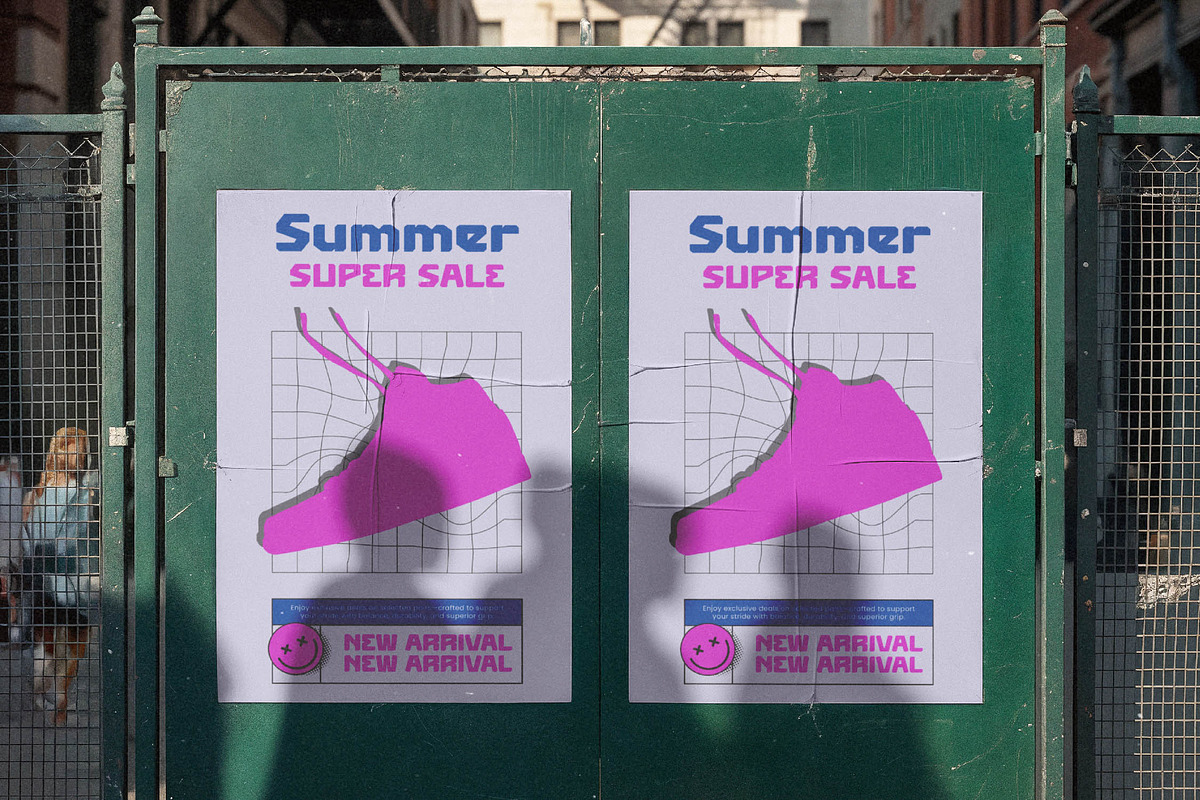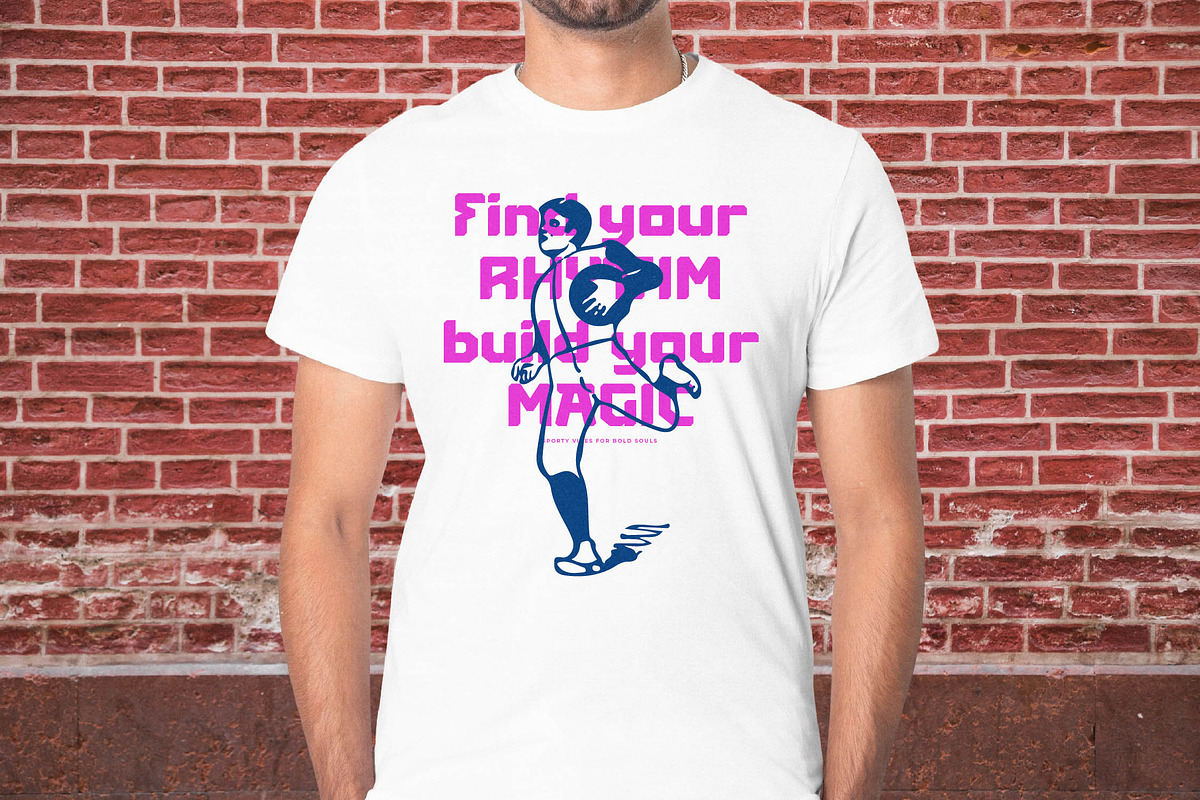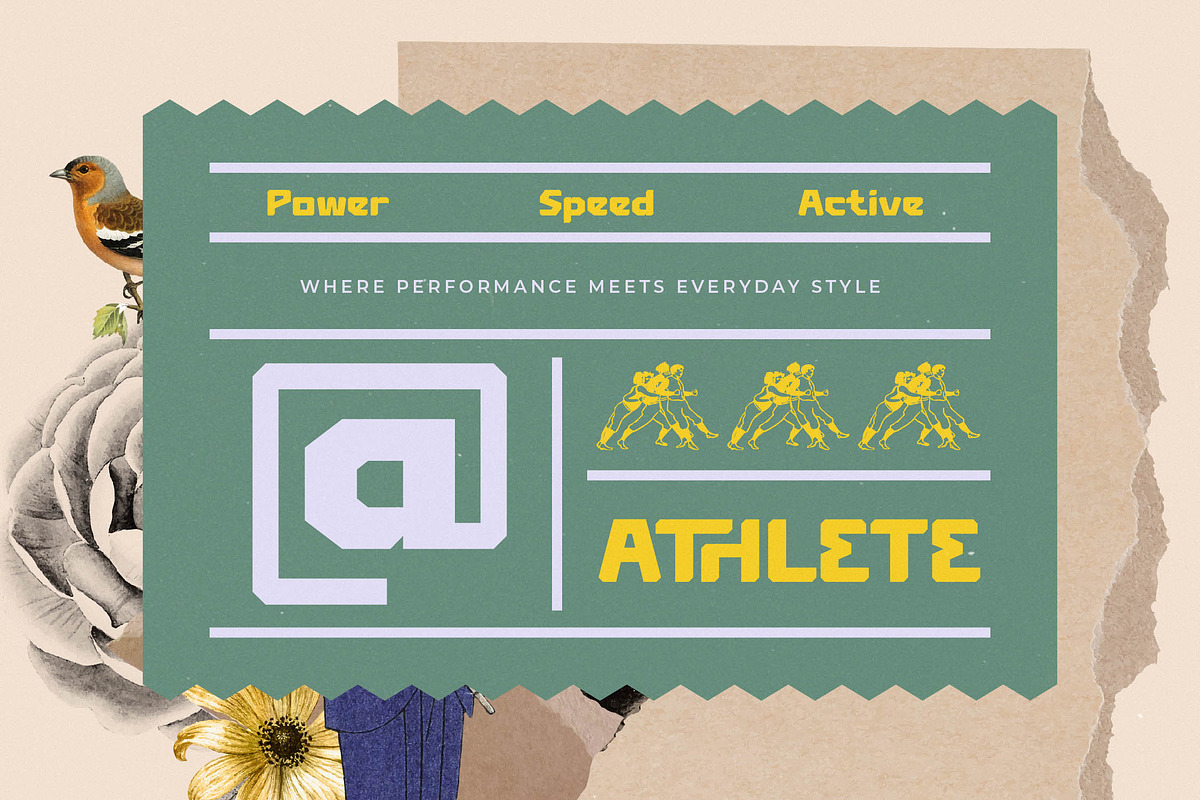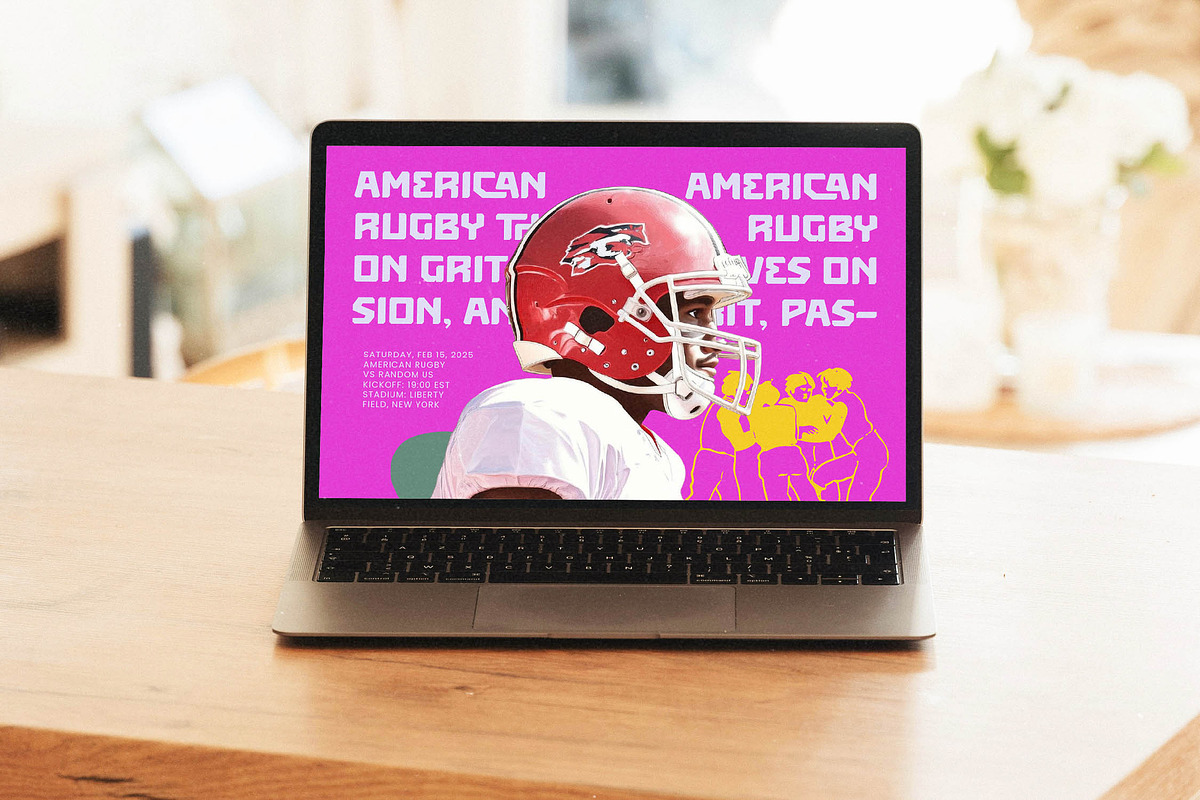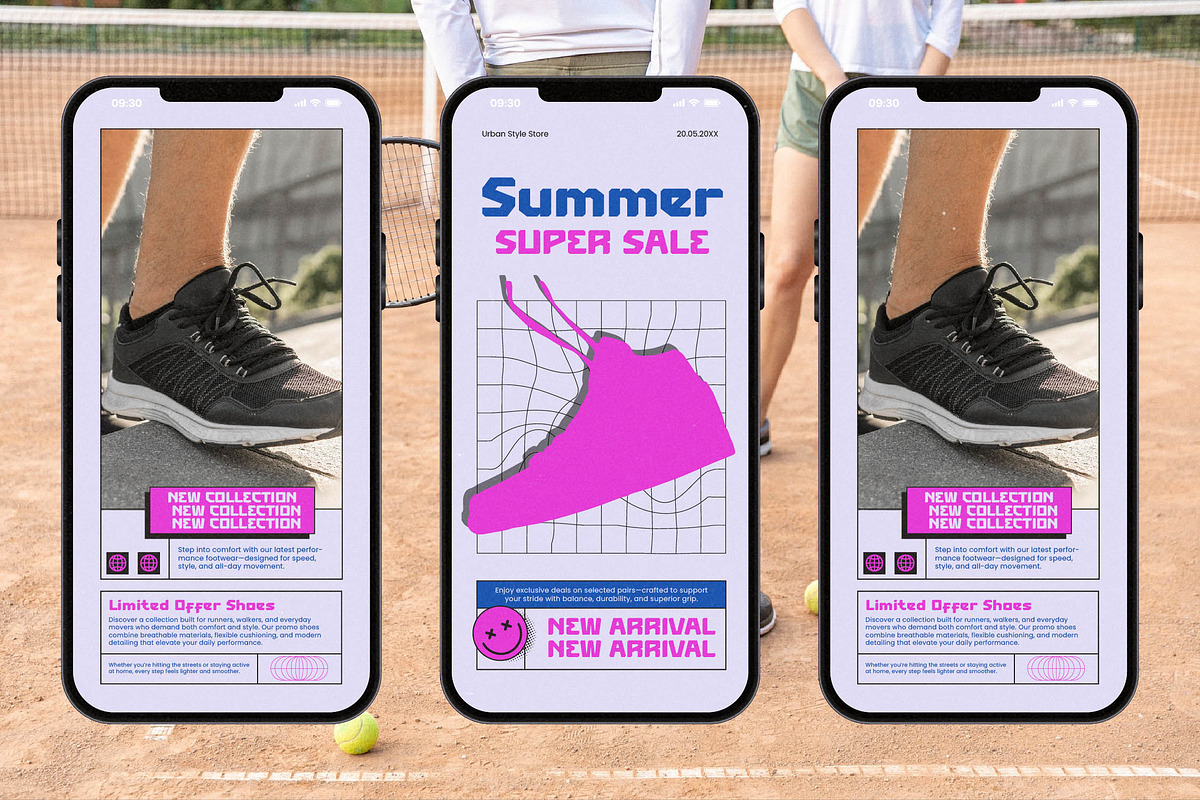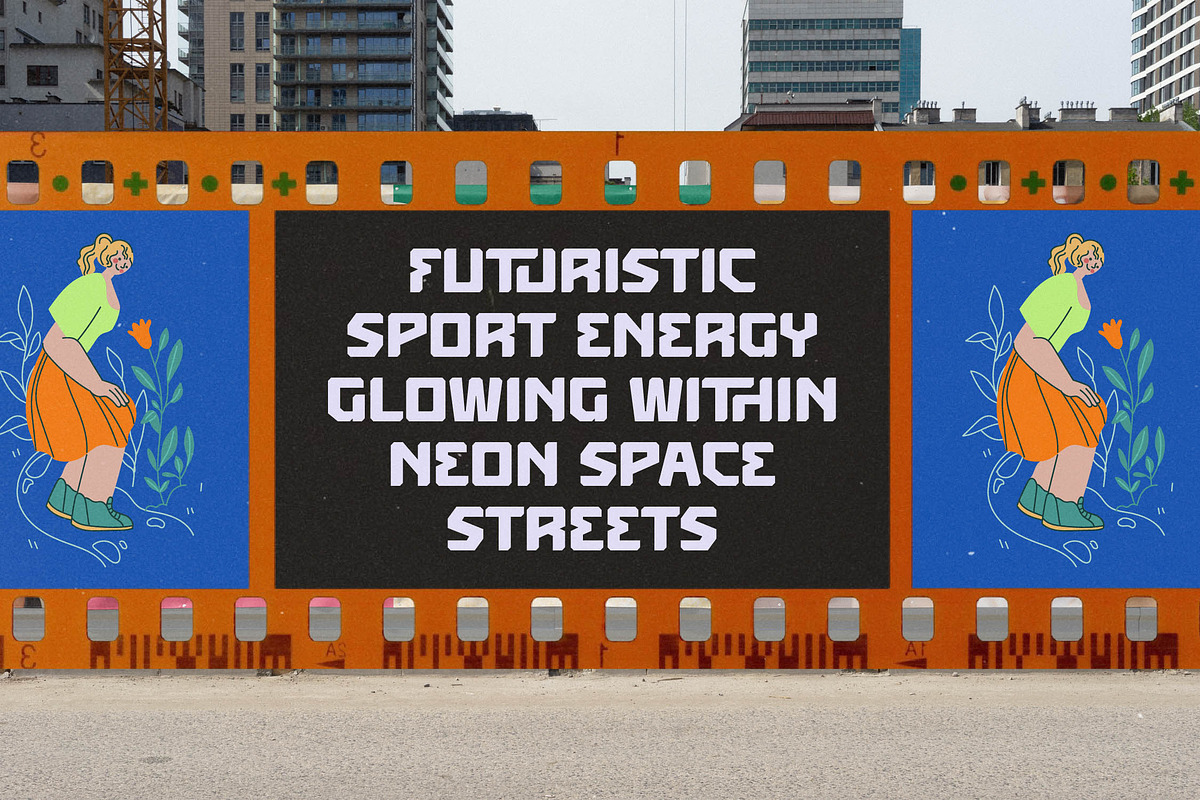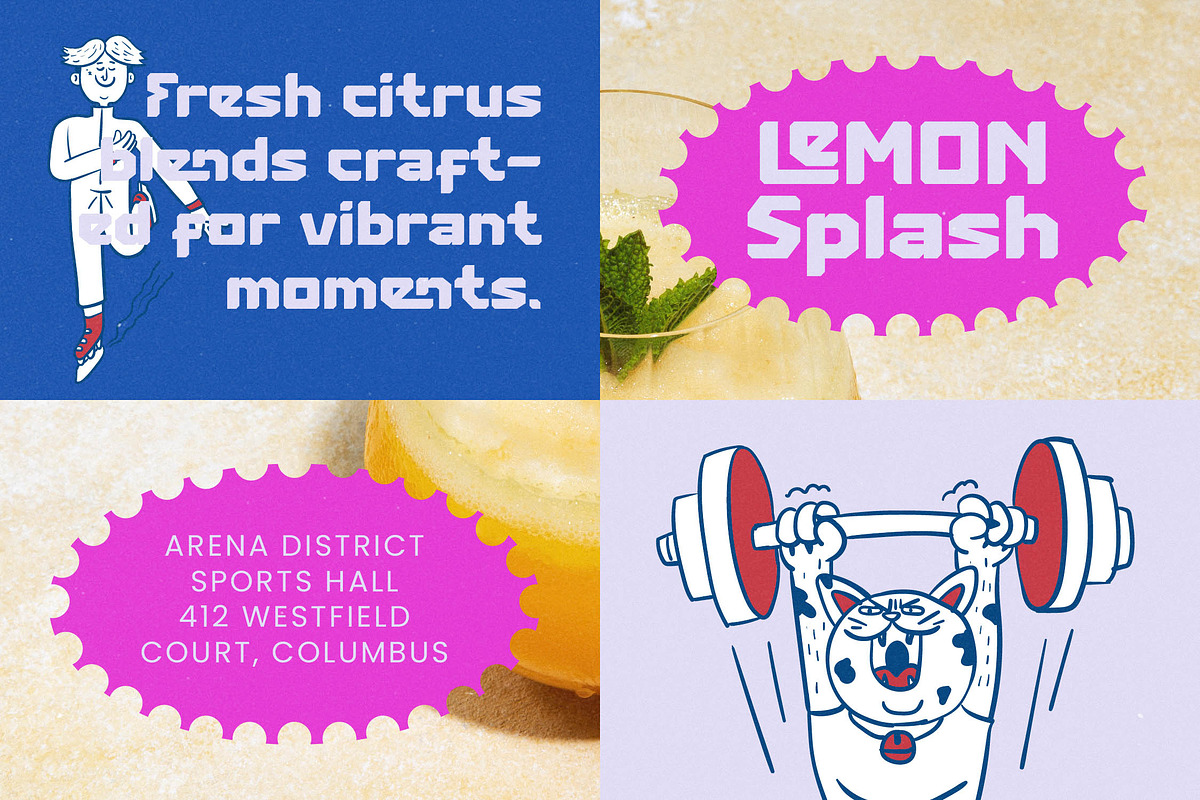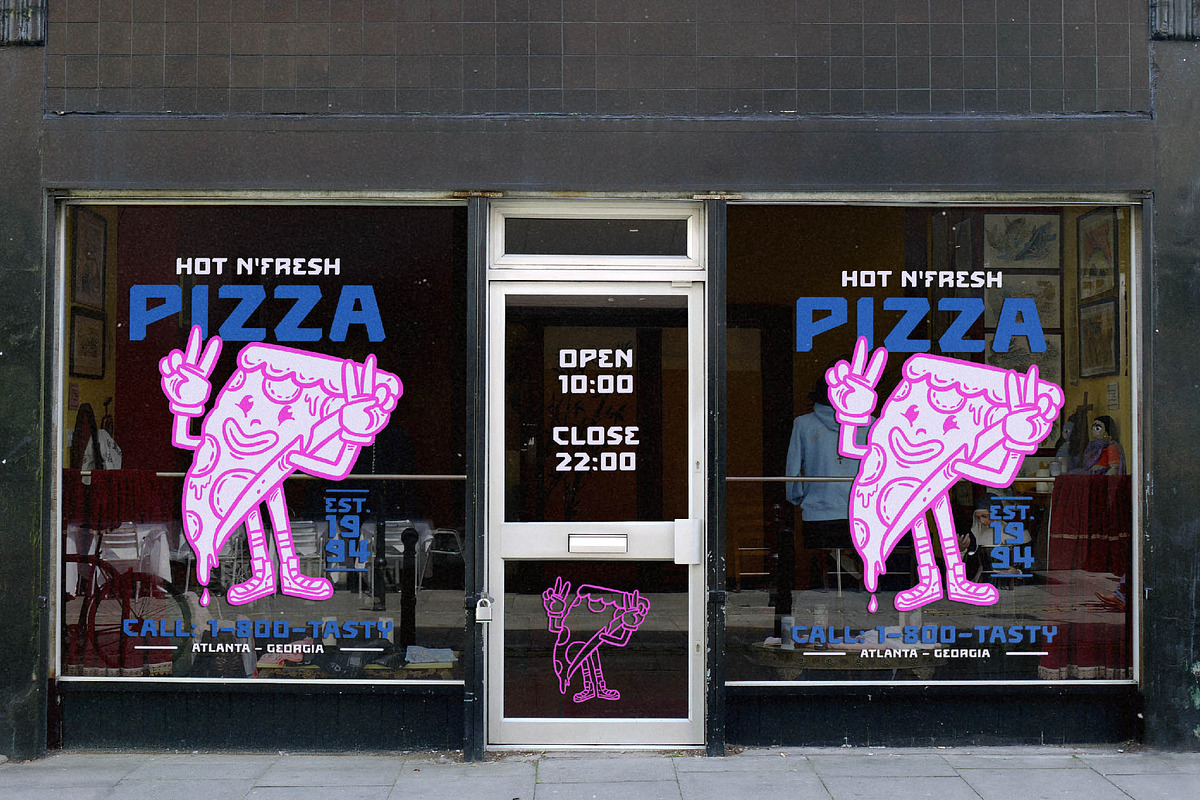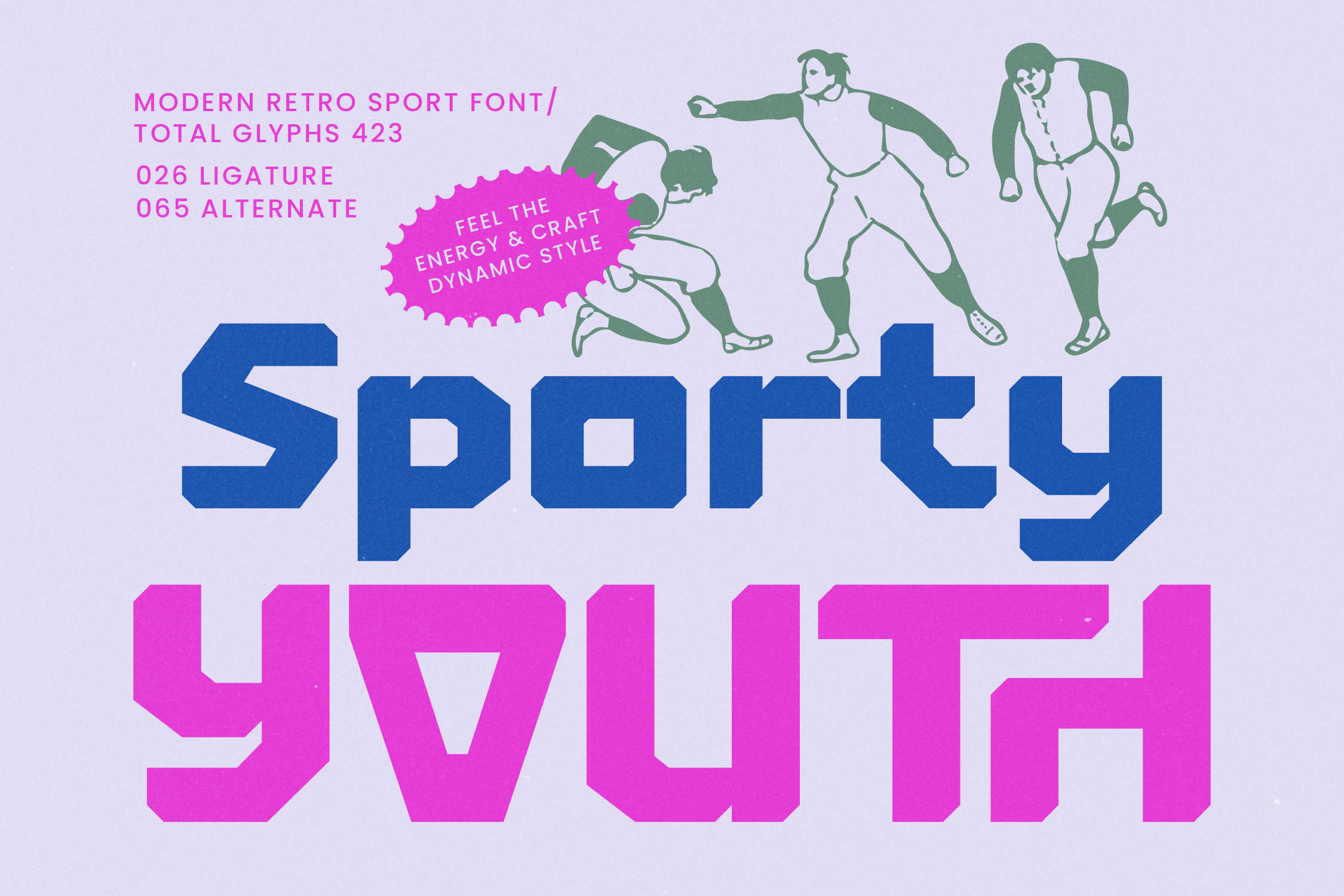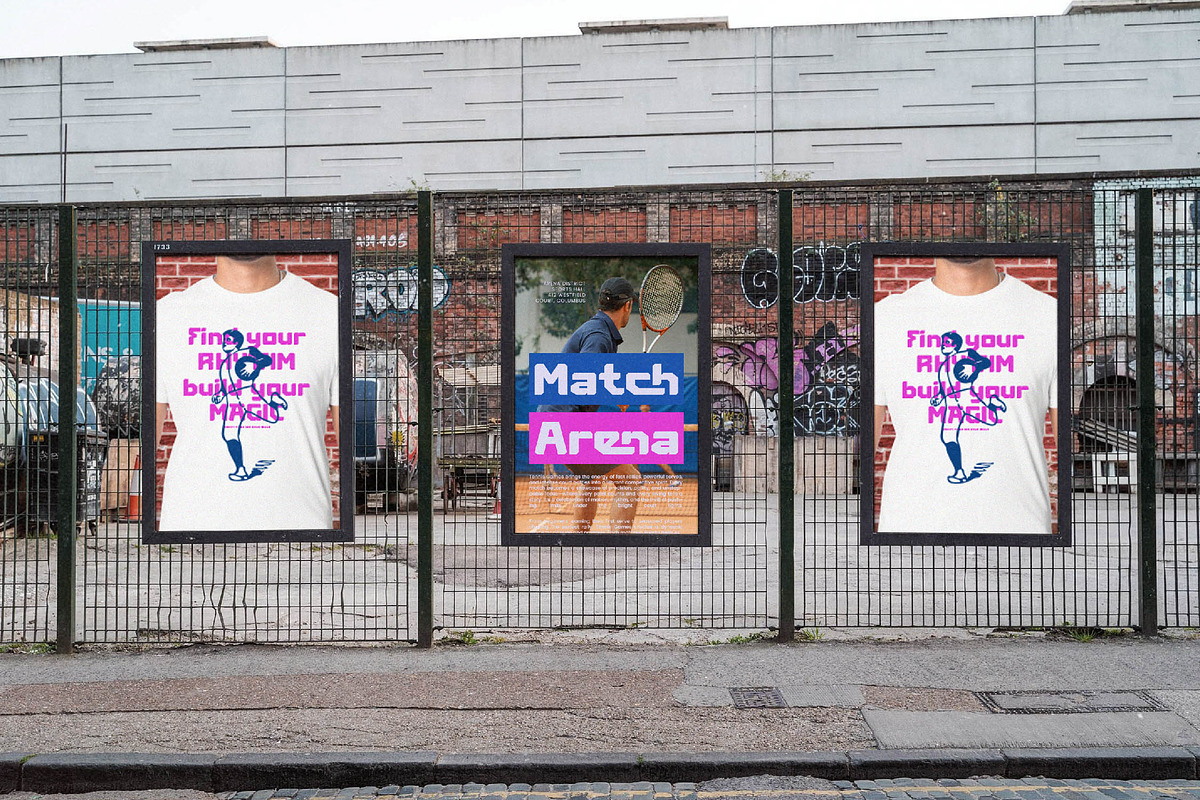
Sporty Youth Modern Retro Font
Fuel your creative projects with the raw power of Sporty Youth, a high-octane display font built for movement and impact. This typeface captures the competitive spirit of the field and translates it into a bold, contemporary design language.
Inspired by the legacy of American rugby and the grit of vintage stadium banners, the letterforms echo a time when sports culture was defined by strength and tradition. It brings that nostalgic energy into the modern era with clean, geometric precision and a sophisticated athletic flair.
This unique modern serif display style offers the presence of luxury typography while maintaining the ruggedness of a high-contrast serif construction. As a versatile editorial font, it ensures a massive branding impact whether it is used for headline-grabbing posters or digital identity systems.
Staying ahead of the modern serif trend, this font redefines the expectations for editorial display fonts in the athletic space. It is a masterpiece of character-driven typography that resonates with audiences looking for both heritage and innovation in their visual storytelling.
Perfect for professional logo design and comprehensive branding suites, its application extends from high-energy editorial spreads to premium packaging. While built for the field, it fits perfectly in the worlds of modern wedding stationery with an edge or avant-garde fashion lookbooks.
Equipped with 423 total glyphs, the set features an extensive collection of ligatures and alternates to help you customize every word. Full multilingual support and international characters ensure your message remains consistent and powerful across global markets and diverse languages.
Numerals
Punctuations (OpenType Standard)
Accents (Multilingual Characters)
Ligatures and Alternative Style Stylistic Set